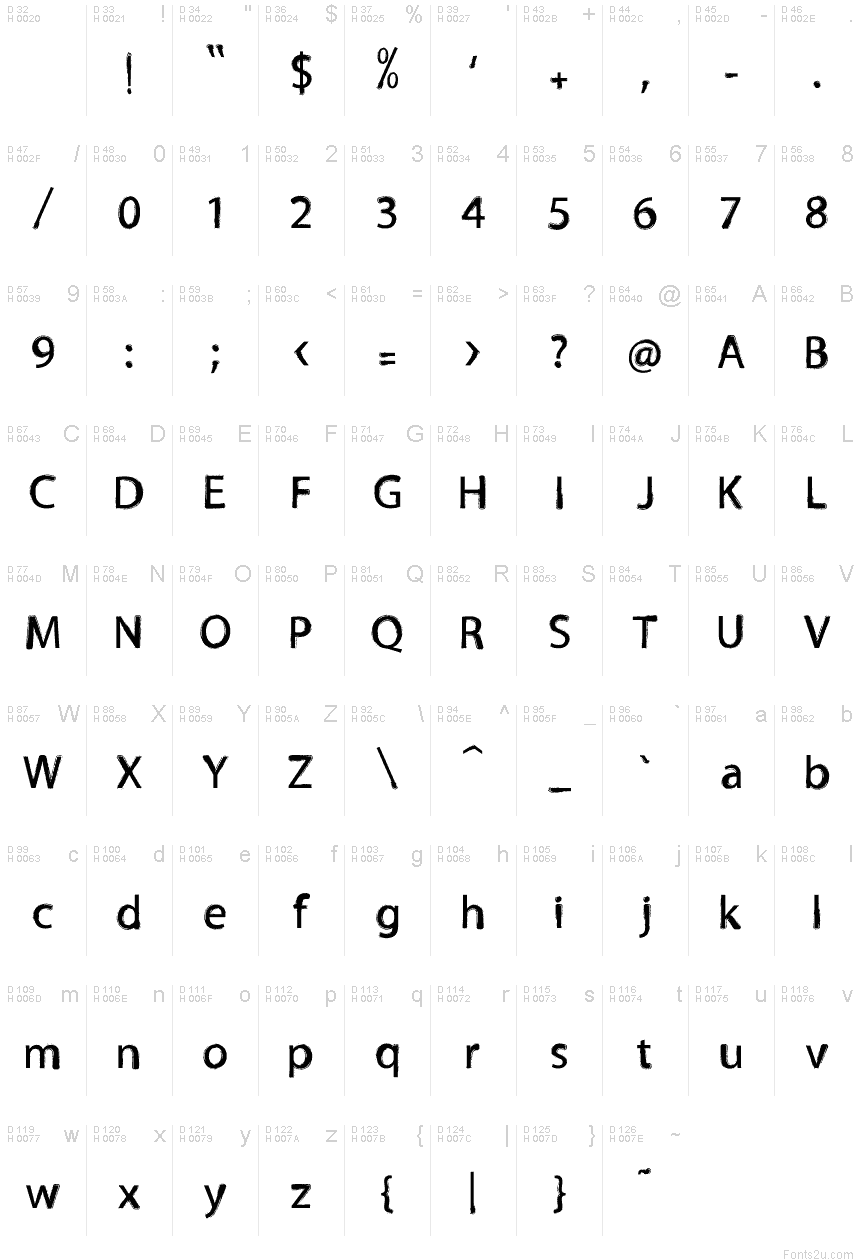
TNEWPRO Normal
TnewPro by Manuel Lage is a free eroded sans serif display font with irregular capitals. Its strokes look hand-inked, with worn edges and small gaps that keep the forms raw. The uneven finish feels immediate and physical.
Its distressed surface can echo photocopied photographs and rough line art on music posters and merchandise. Its scraped texture also suits film graphics and streetwear branding with a low-fi direction. On magazine covers, a title can become part of the printed texture.